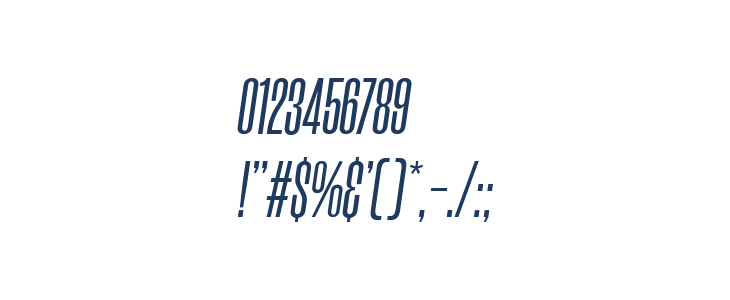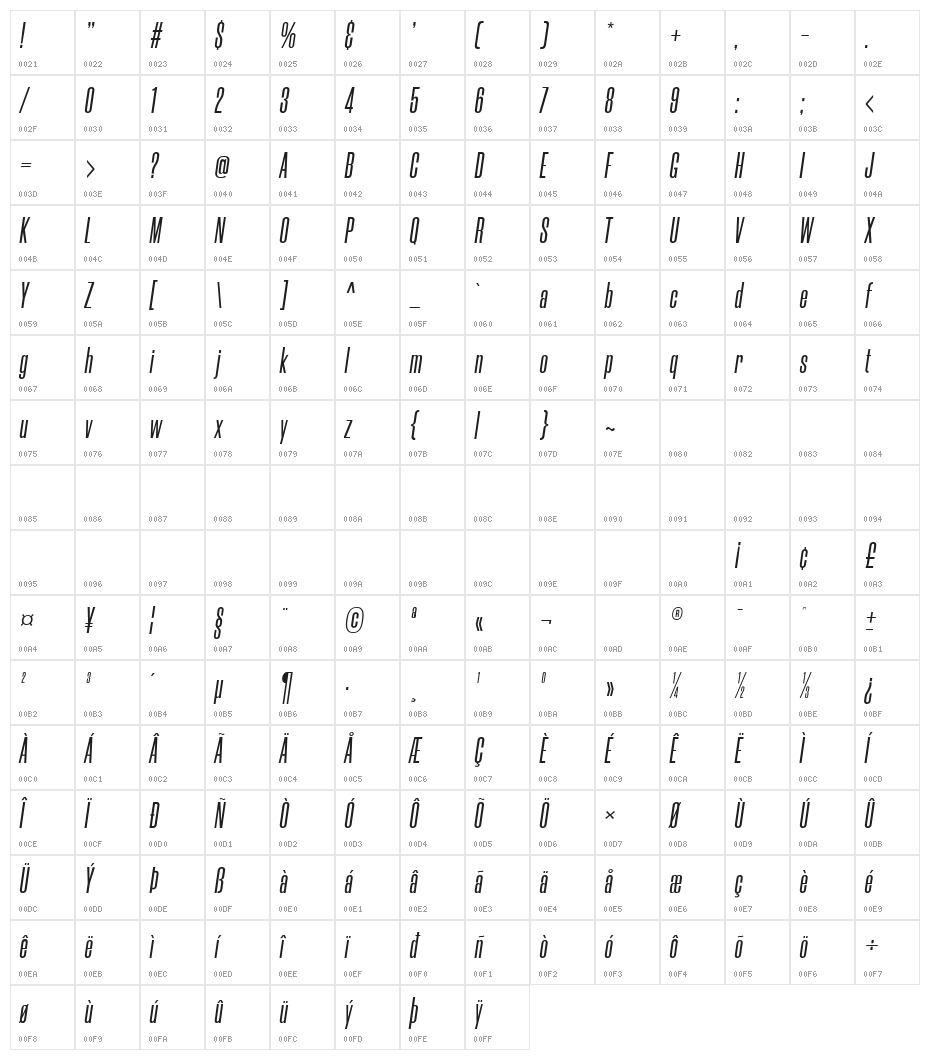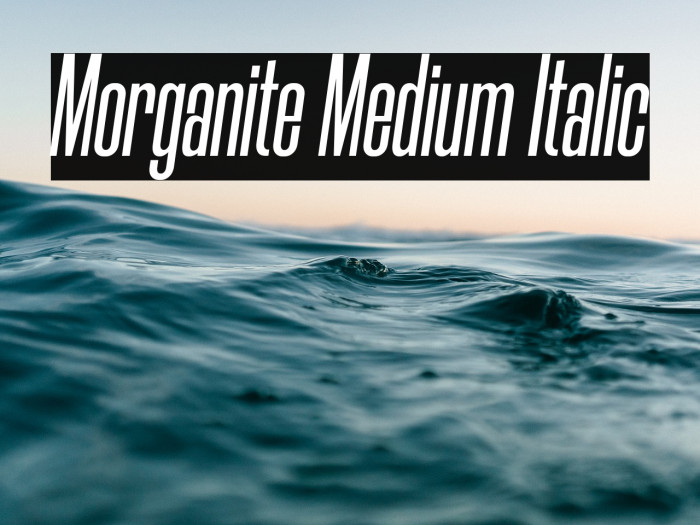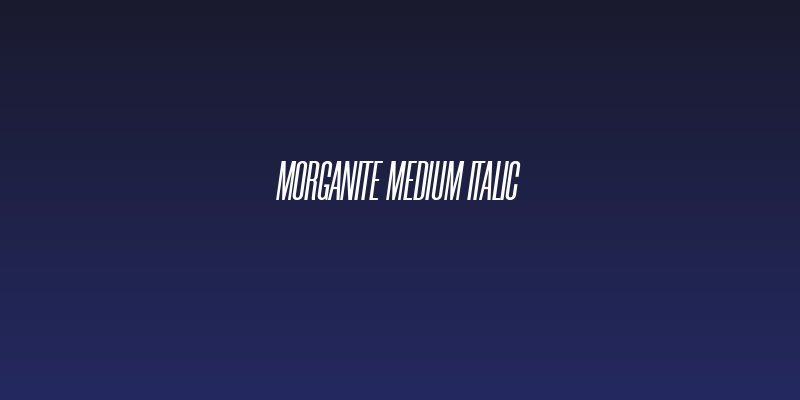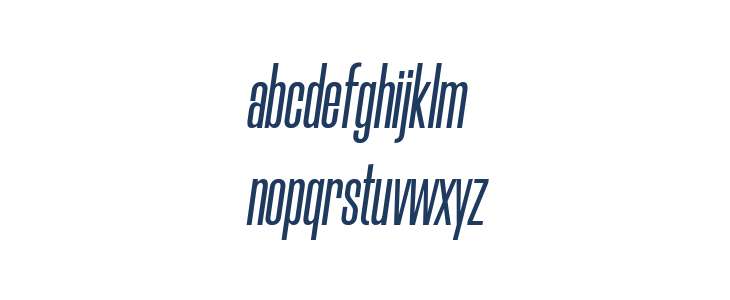
Morganite Medium Italic Font
Morganite Medium Italic Description
This font features a sleek and modern design with a distinct italic slant, giving it a dynamic and forward-moving appearance. The characters are tall and narrow, contributing to a condensed look that is both stylish and efficient in space usage. The strokes are consistent in thickness, providing a uniform and clean aesthetic. The uppercase and lowercase letters maintain a harmonious balance, while the numerals and special characters are crafted to match the overall style seamlessly. This font's design is ideal for creating a sense of motion and elegance in any project.
| Proposed Projects | Ideal for branding, advertising, and editorial design where a modern and dynamic look is desired. |